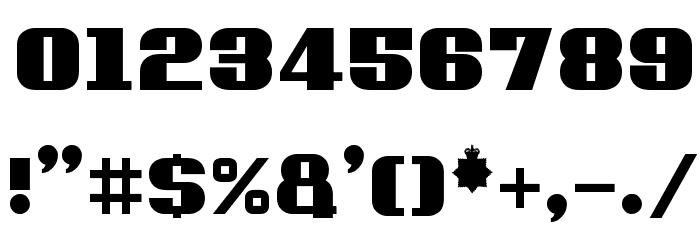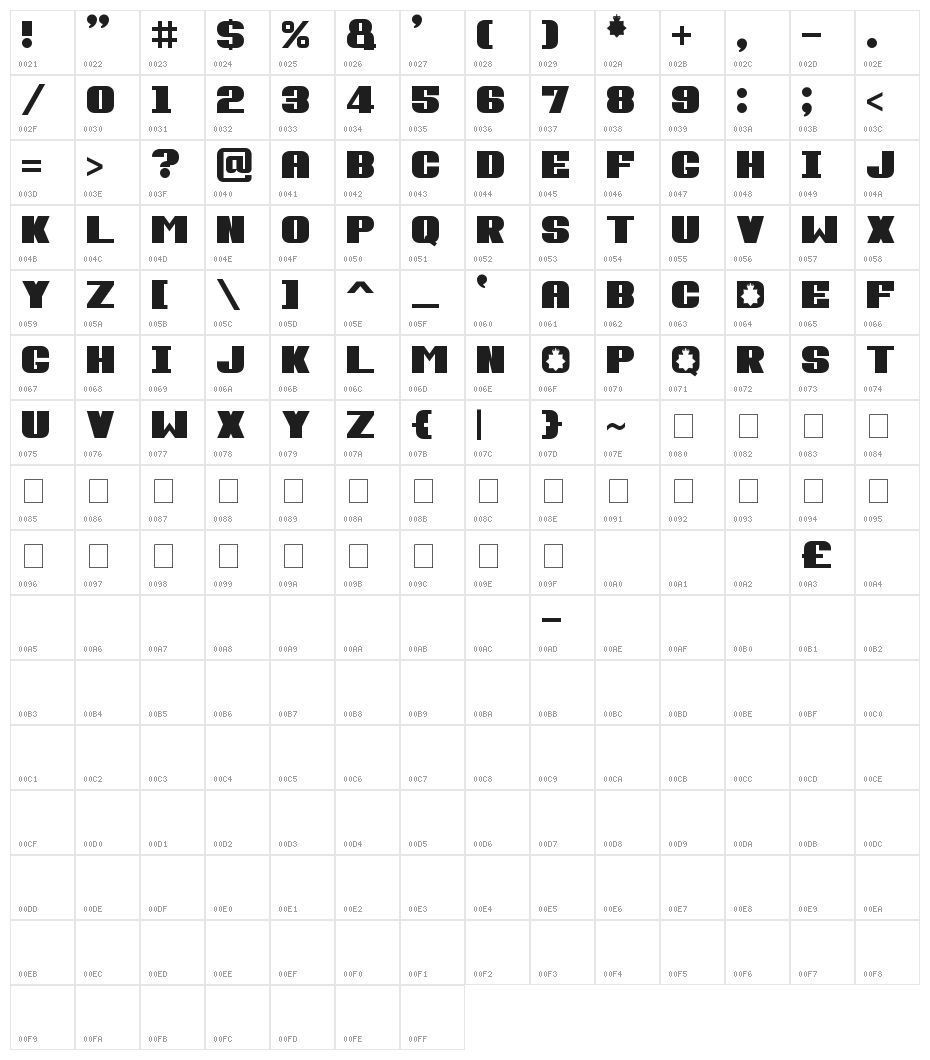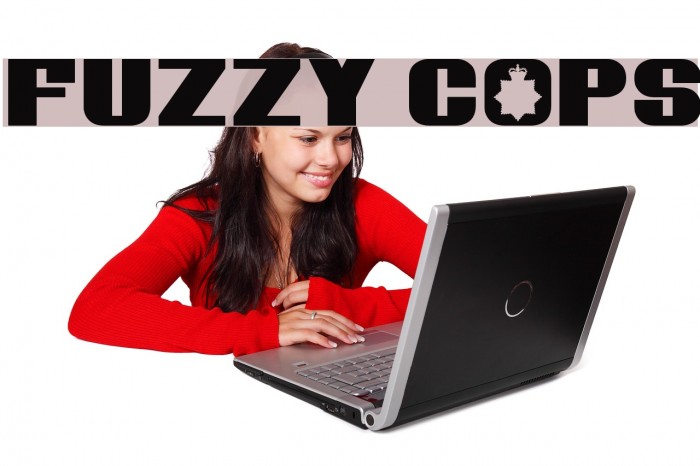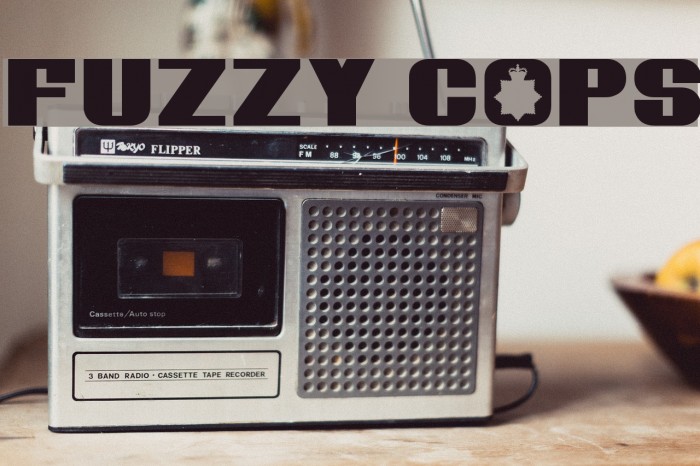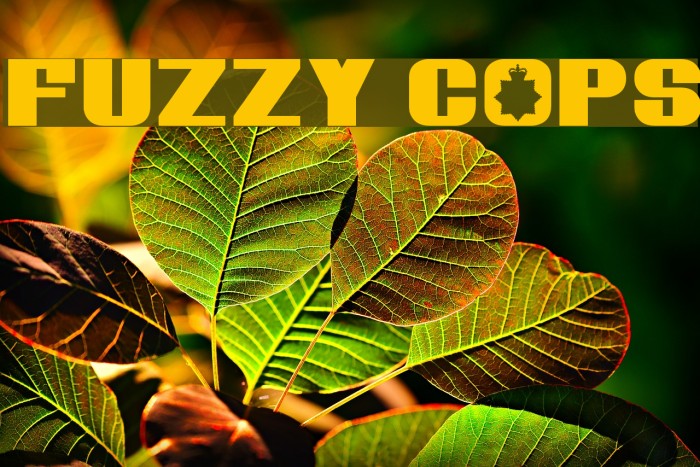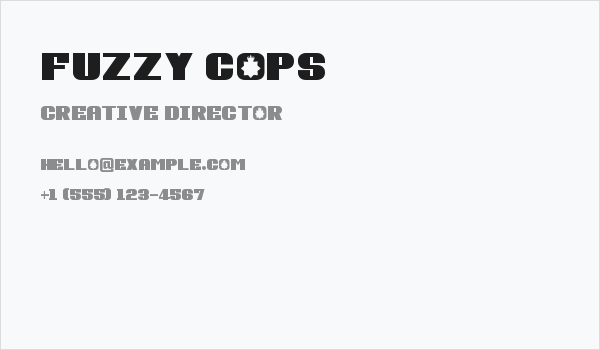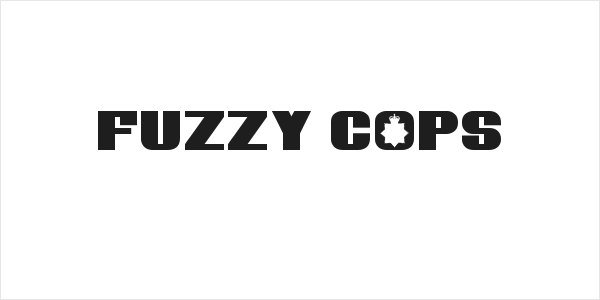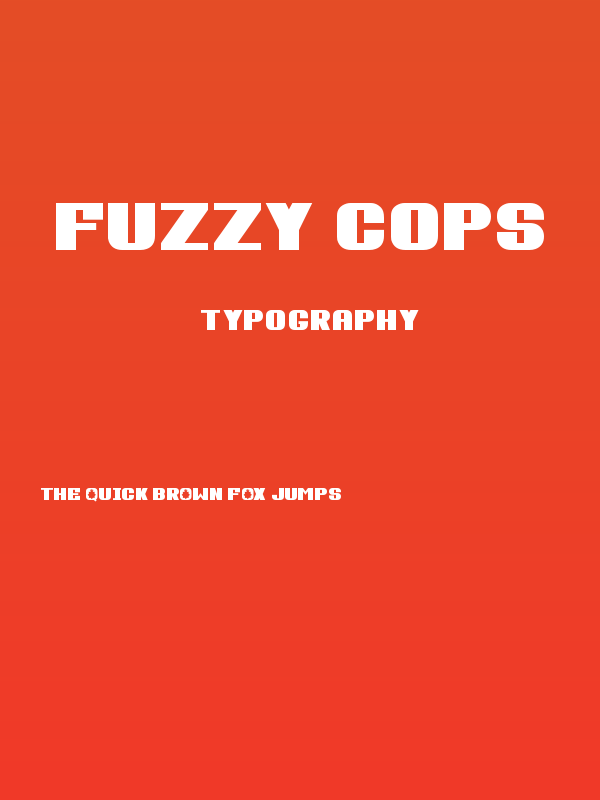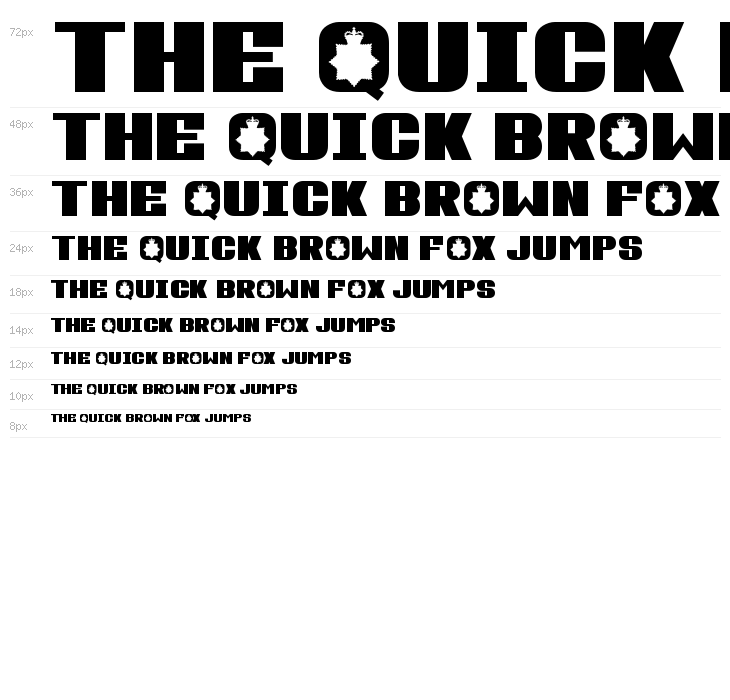
Fuzzy Cops Font
Fuzzy Cops Description
This bold, decorative font features a strong, impactful design with thick, block-like characters. Each letter is uniquely styled with a stencil-like appearance, incorporating cut-out elements that add a rugged, industrial feel. The uppercase letters are particularly striking, with consistent height and width, creating a uniform look. The numbers and special characters maintain this bold aesthetic, ensuring a cohesive appearance across all glyphs. The font's design is reminiscent of military or law enforcement themes, making it ideal for projects that require a strong, authoritative presence.
| Use Case | Logos, Posters, Branding |
| Proposed Projects | Ideal for posters, logos, branding for law enforcement or military-themed events, and any project requiring a strong, authoritative look. |